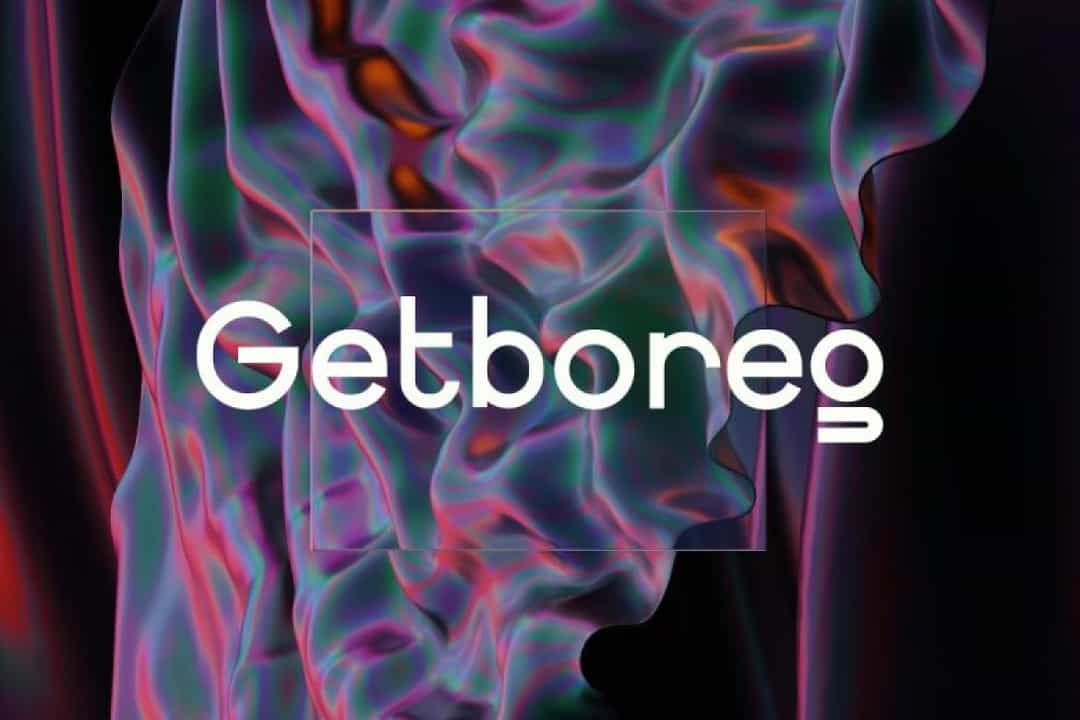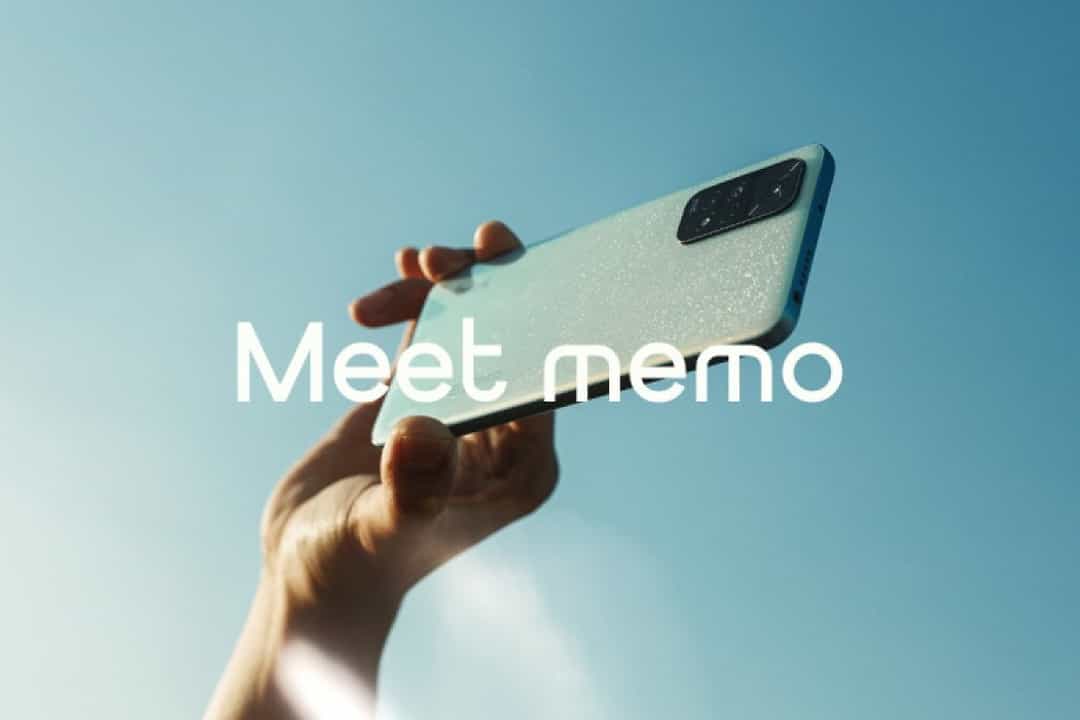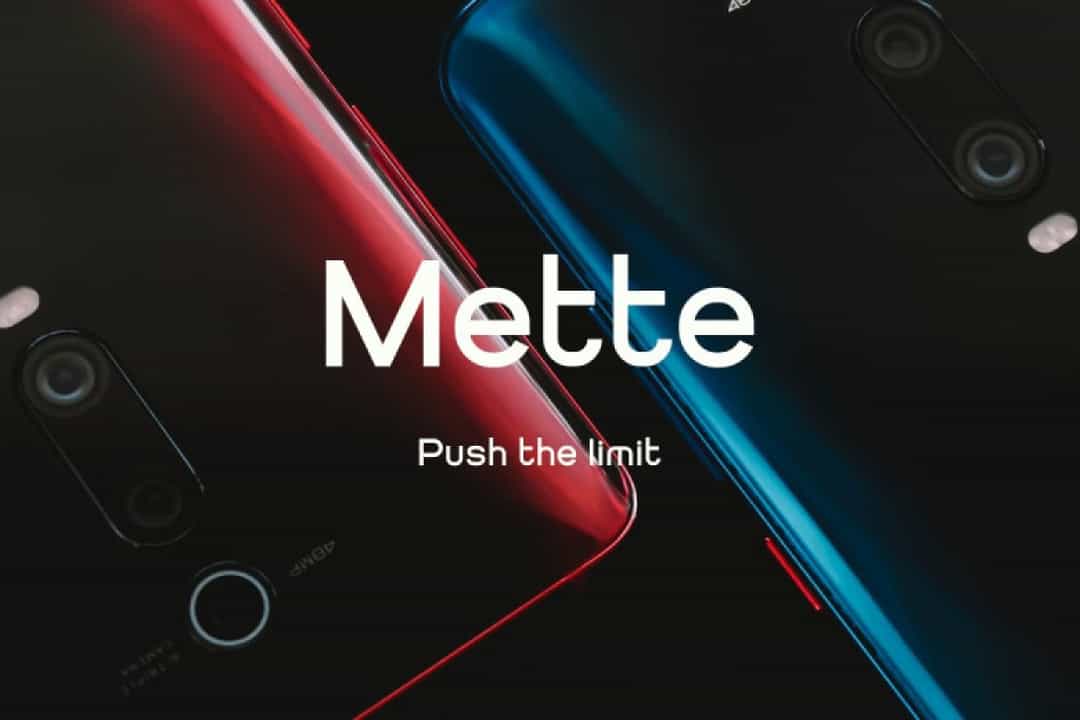
Getboreg is a modern and elegant screen font featuring elegant lines and bold letters that exudes confidence and creativity. Its geometric forms and sharp angles offer an edgy aesthetic, ideal for modern designs in fashion, technology and advertising.